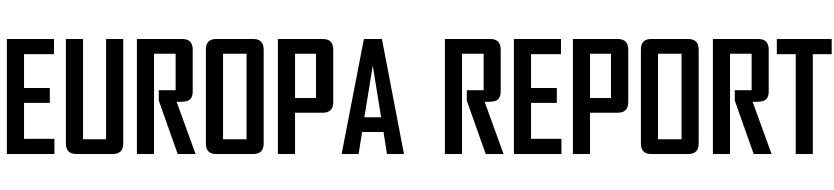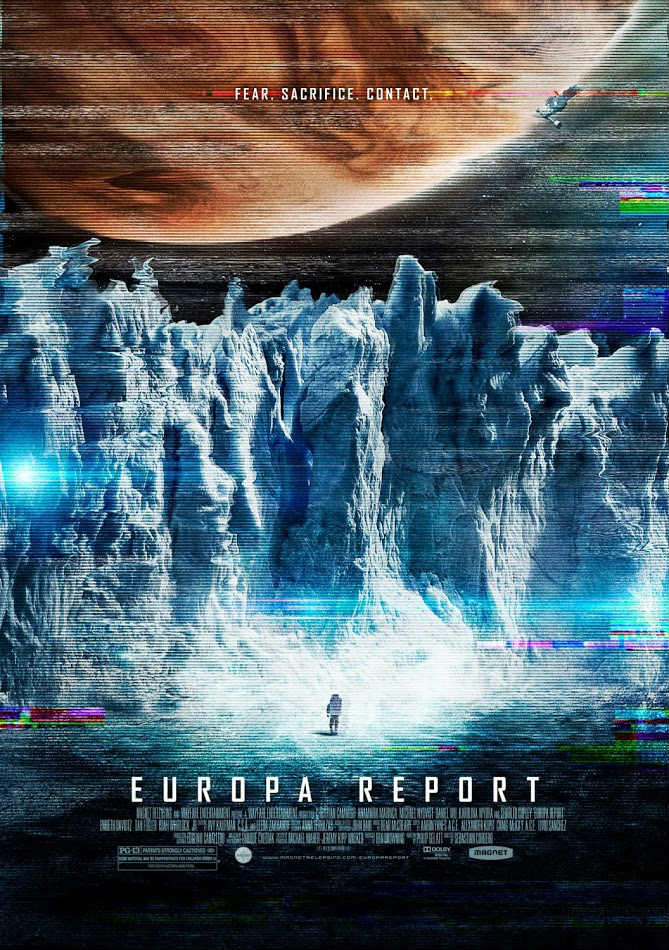
Europa Report Font
Fonts in UseEuropa Report is a 2013 science-fiction thriller film that follows the crew of a spacecraft as they embark on a mission to explore Jupiter's moon, Europa, in search of extraterrestrial life. The film is presented in a found-footage style, adding to its immersive and suspenseful atmosphere.
Agency FB Bold, a geometric sans-serif font family created by David Berlow of Font Bureau, is used for the film title in the poster. You can find additional information about it by clicking here.